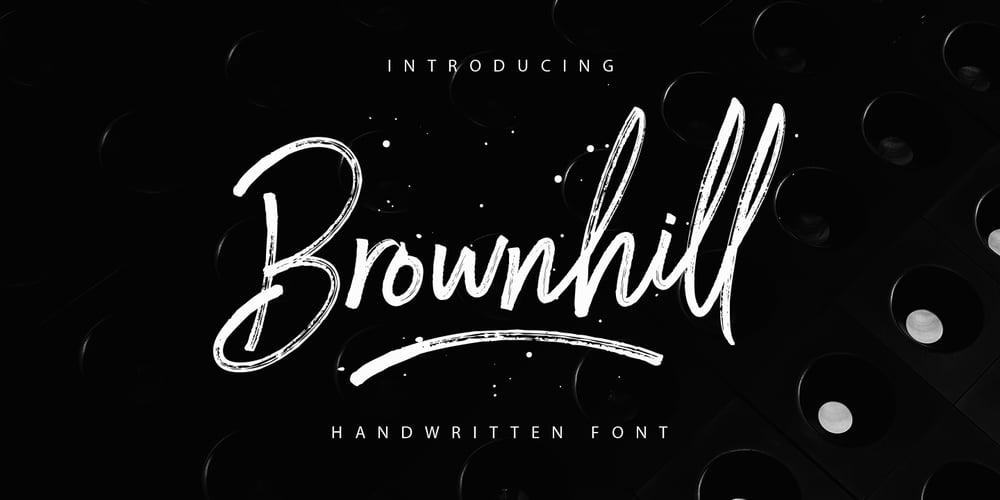
Brownhill Script
Brownhill Script font
Brownhill Script Font Family was designed by Faisal Tanjung and published by sizimon. Brownhill Script contains 2 styles and family package options. Brownhill Script is hand written fonts set . Very cool for logos, name tag, handwritten quotes, product packaging, merchandise, social media & greeting cards. And very easy to make design t-shirts and other products. Very save time in making the design of a product. It contains a full set of lower & uppercase letters, a large range of punctuation, numerals, and multilingual support.What’s Include : Brownhill Script Swash 3 sets of lowercase letter 2 sets of uppercase letter Bonus Swash Multilingual support To access the alternate glyphs, you need a program that supports OpenType features such as Adobe Illustrator CS, Adobe Photoshop CC, Adobe Indesign and Corel Draw.If you have any question please do not hesitate to contact me. Thank You!